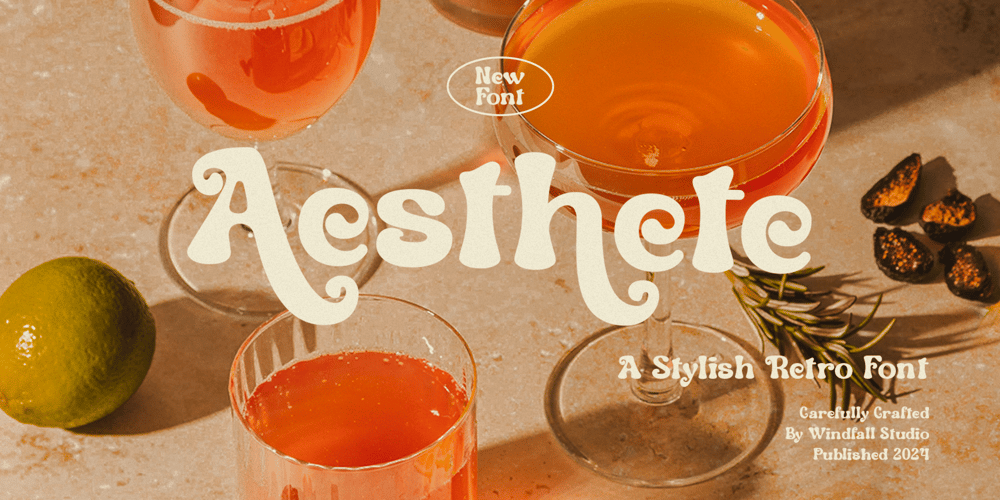
Aesthete Font Family was designed by Anggia Putri Premitasari and published by Windfall Studio. Aesthete contains 1 styles and family package options. Aesthete a retro groovy font by Windfall Studio that effortlessly blends nostalgia and modern design. Perfect for adding a fun and vibrant touch to any project, Aesthete features bold curves and playful lines that make it stand out. Whether you’re working on eye-catching headlines, colorful posters, or unique branding materials, this font’s lively character brings an energetic and cheerful vibe to your designs.Aesthete retro aesthetic makes it ideal for projects inspired by the past but with a contemporary twist. Use it for anything from product packaging and social media graphics to wedding invitations and event flyers, and watch your creations come to life. The font’s handcrafted quality ensures that every letter is meticulously designed to offer a clean and polished look.Easy to use and seamlessly integrating with popular design software like Adobe Illustrator and Photoshop, Aesthete allows you to bring your creative visions to reality with minimal effort. Its versatility means it works well for both large, bold headlines and detailed text, making it a perfect choice for various applications.For those searching for keywords like retro, groovy, playful, bold, vibrant, stylish, elegant, and handcrafted, Aesthete is the go-to font. Elevate your designs with Reconcile and let its unique blend of retro charm and modern flair shine through in every letter.